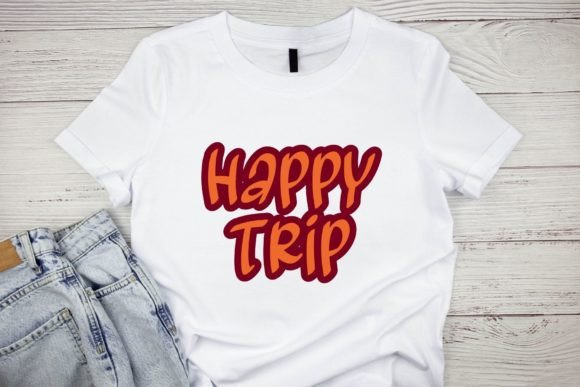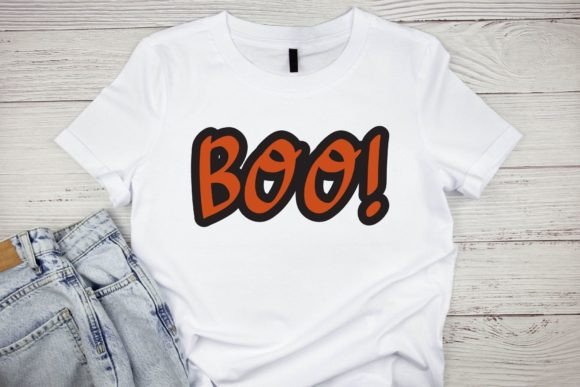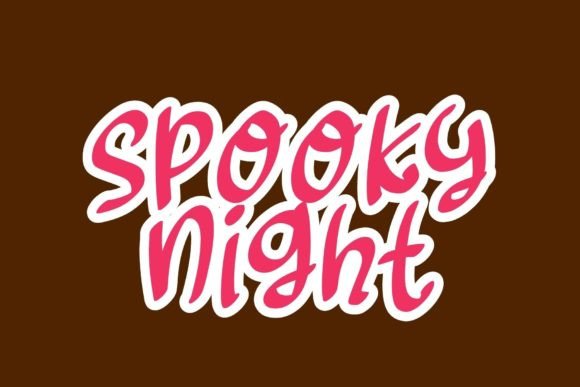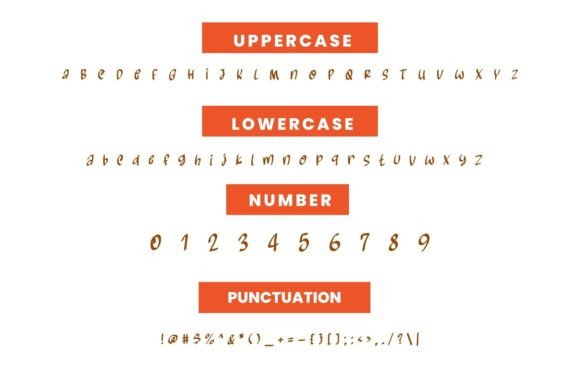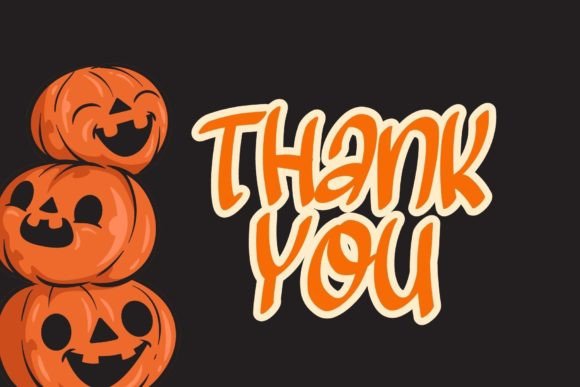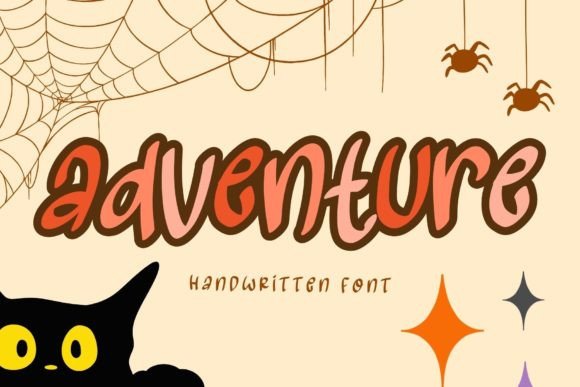
Introducing Adventure Font: The Perfect Choice for Playful and Authentic Designs
Are you tired of using the same old fonts for your designs? Do you want to add a touch of playfulness and authenticity to your projects? Look no further than Adventure Font, a cute handwritten font that’s perfect for a wide range of applications. In this article, we’ll explore the features and benefits of Adventure Font, and show you how it can elevate your designs to the next level.
What is Adventure Font?
Adventure Font is a beautiful, handwritten font that’s designed to bring a sense of fun and adventure to your designs. With its playful and authentic feel, it’s the perfect choice for designers and crafters who want to add a personal touch to their projects. Whether you’re working on a blog post, logo, branding, ad, invitation, greeting card, planner, photo album, or decoration, Adventure Font is the perfect choice.
Key Features of Adventure Font
• Playful and Authentic: Adventure Font has a unique, handwritten feel that’s both playful and authentic. It’s perfect for designs that require a personal touch.
• Versatile: Adventure Font is suitable for a wide range of applications, from blog posts and logos to invitations and decorations.
• High-Quality: Adventure Font is a high-quality font that’s designed to produce crisp, clear results, even at small sizes.
Benefits of Using Adventure Font
So why choose Adventure Font for your designs? Here are just a few benefits of using this amazing font:
• Adds a Personal Touch: Adventure Font adds a personal touch to your designs, making them stand out from the crowd.
• Increases Engagement: The playful and authentic feel of Adventure Font can help increase engagement with your audience.
• Versatile: Adventure Font is suitable for a wide range of applications, making it a great addition to your font library.
• Easy to Read: Adventure Font is easy to read, even at small sizes, making it perfect for body text and headings.
Creative Ways to Use Adventure Font
So, how can you use Adventure Font in your designs? Here are a few creative ideas to get you started:
• Blog Posts: Use Adventure Font for your blog post titles and headings to add a touch of playfulness and authenticity.
• Logos and Branding: Adventure Font is perfect for logos and branding, especially for businesses that want to convey a sense of fun and adventure.
• Invitations and Greeting Cards: Add a personal touch to your invitations and greeting cards with Adventure Font.
• Decorations: Use Adventure Font to create beautiful decorations, such as wall art and signs.
• Planners and Photo Albums: Adventure Font is perfect for planners and photo albums, adding a touch of personality to your designs.
Font Name Adventure Font
Author Brown Cupple Fonts
In conclusion, Adventure Font is a beautiful, handwritten font that’s perfect for designers and crafters who want to add a touch of playfulness and authenticity to their designs. With its versatile and easy-to-use design, it’s suitable for a wide range of applications, from blog posts and logos to invitations and decorations. So why not give Adventure Font a try and see the difference it can make in your designs?
Whether you’re a seasoned designer or a crafty DIY enthusiast, Adventure Font is a great addition to your font library. Its unique, handwritten feel and high-quality design make it the perfect choice for any project that requires a personal touch. So go ahead, add Adventure Font to your designs, and enjoy the results!